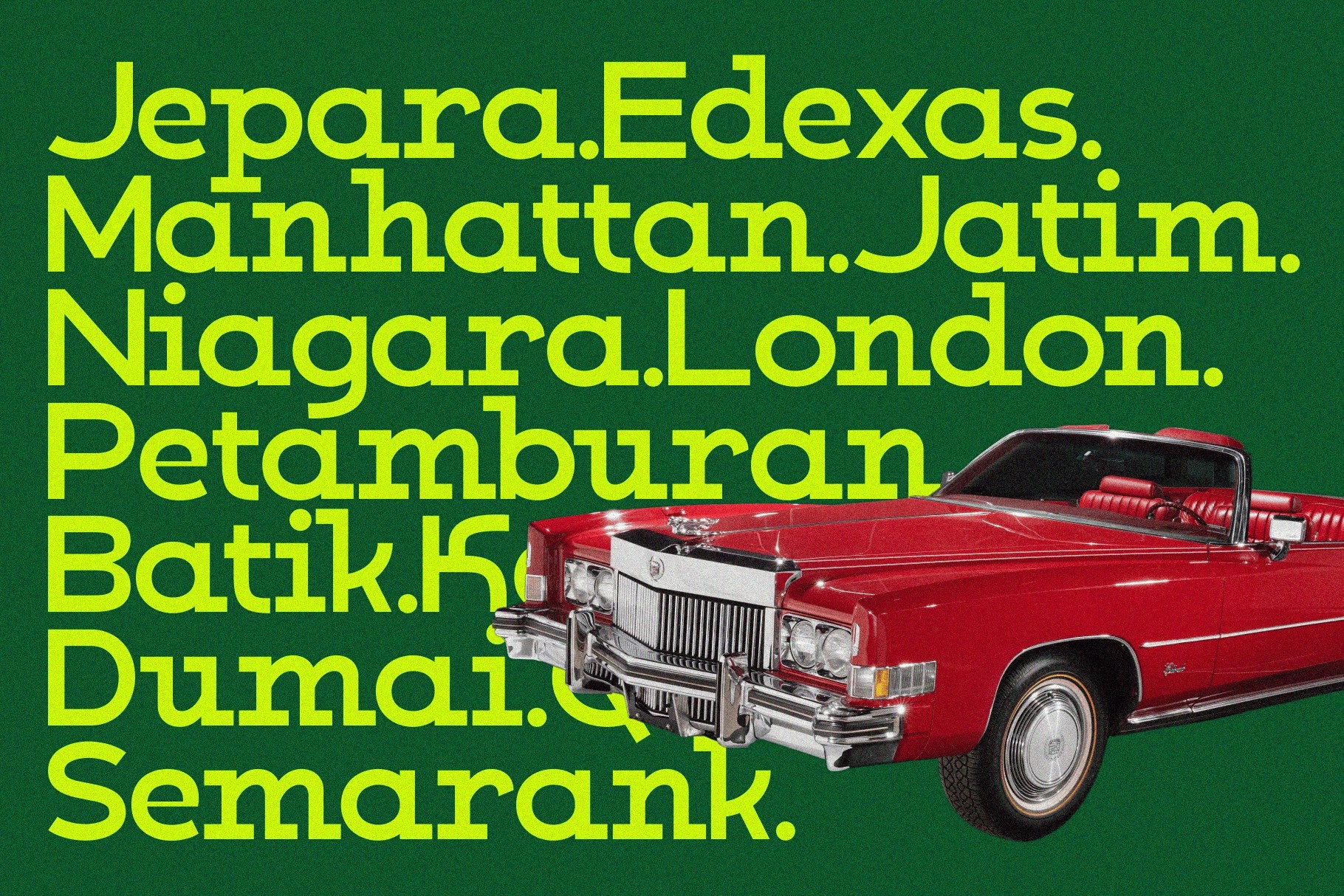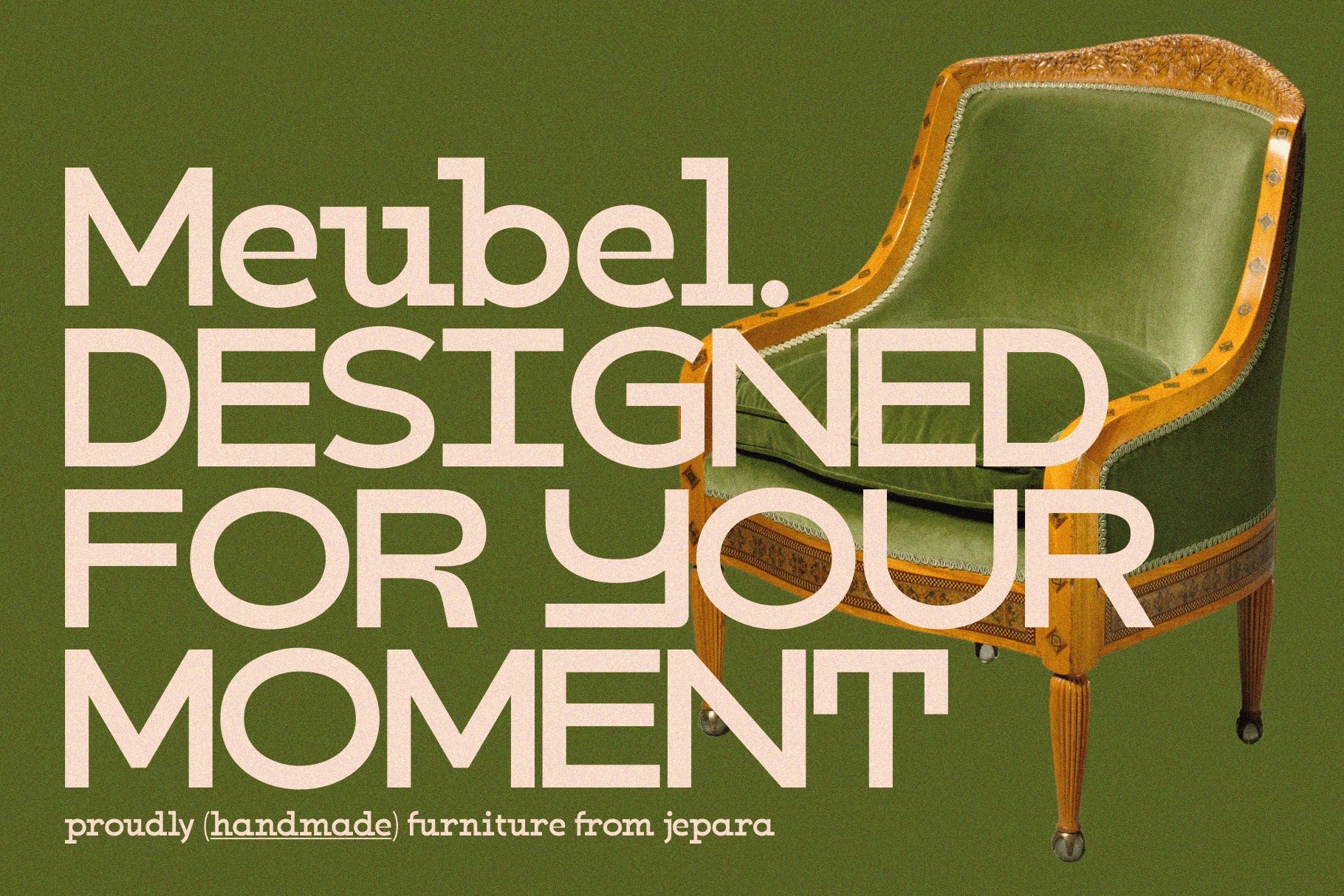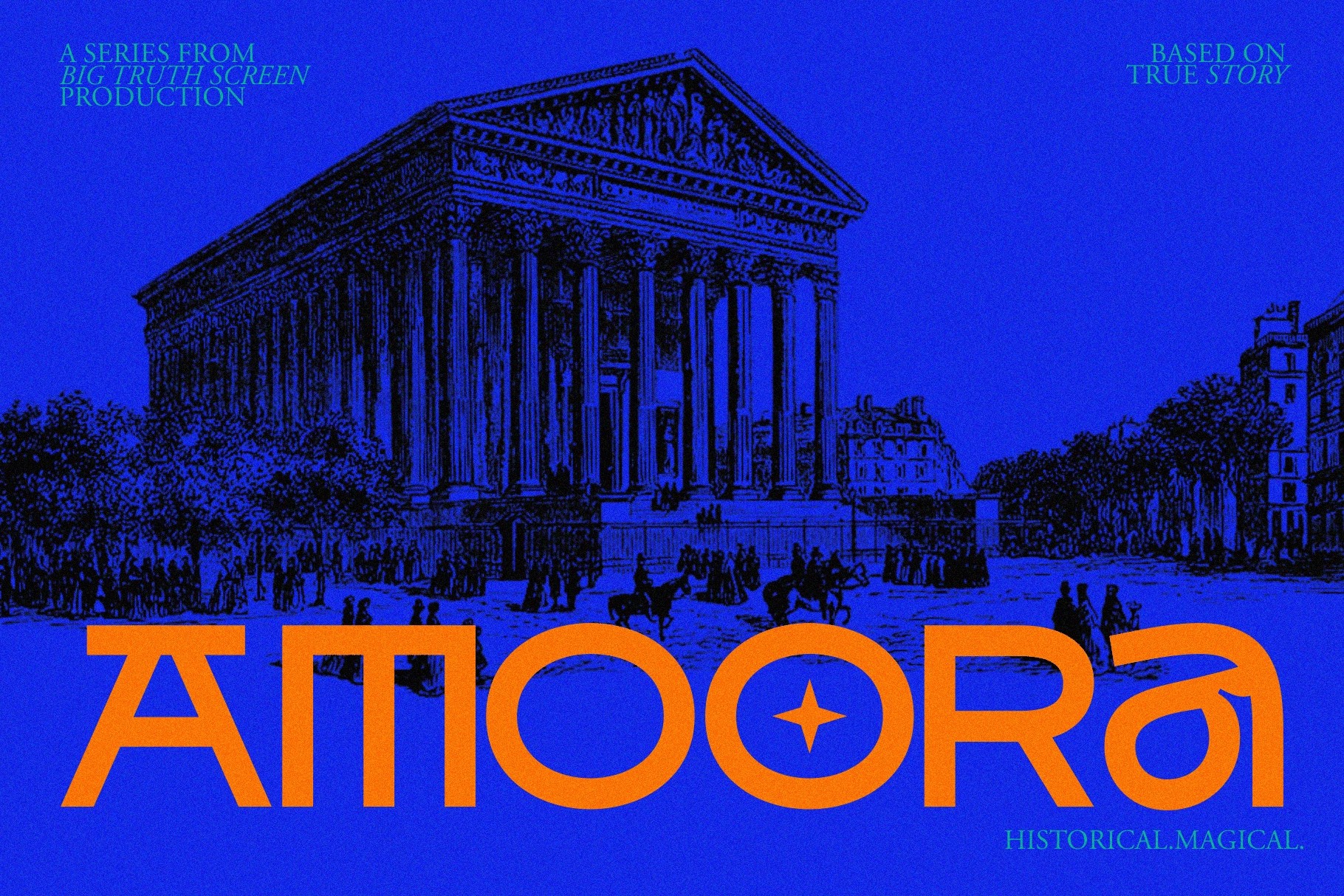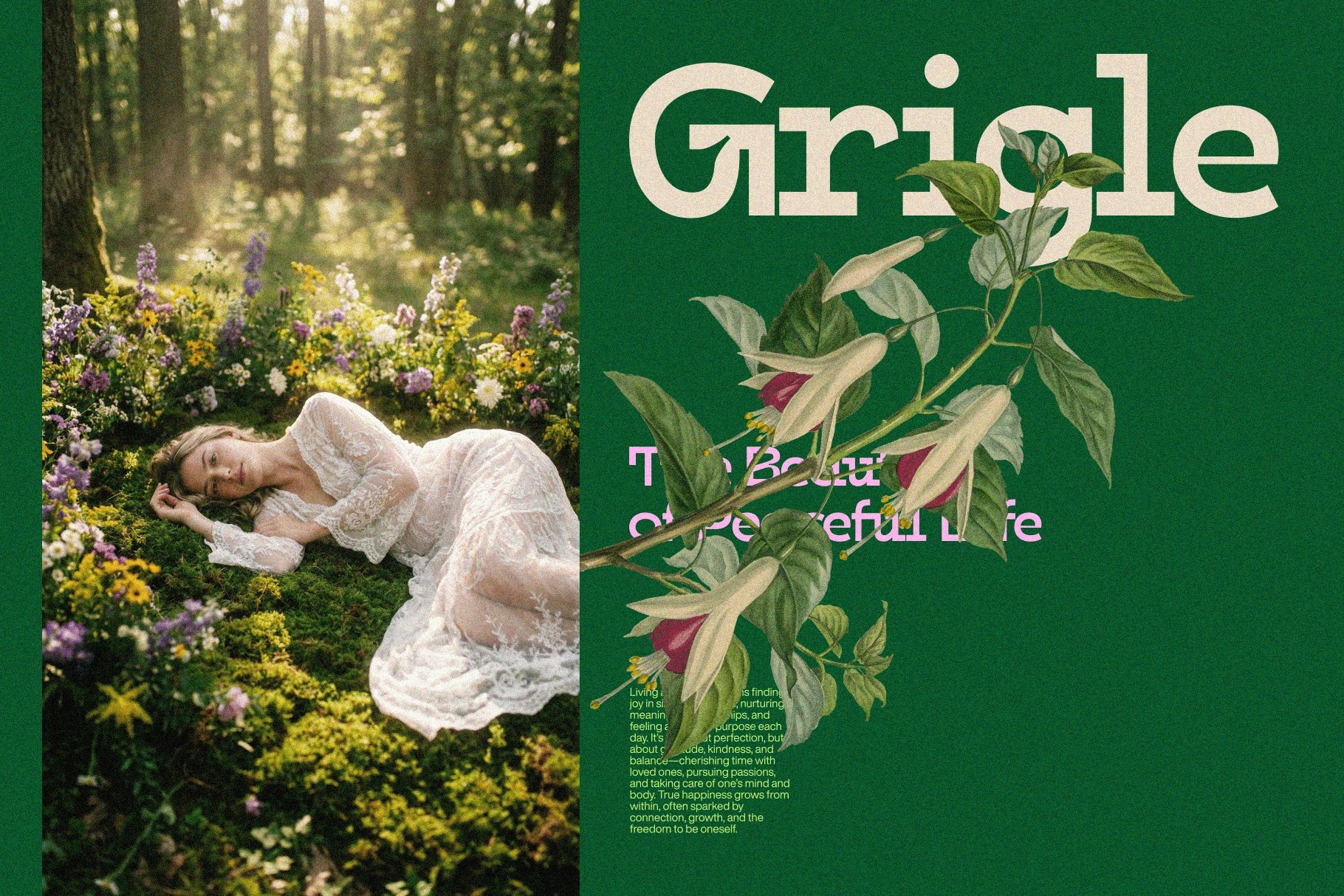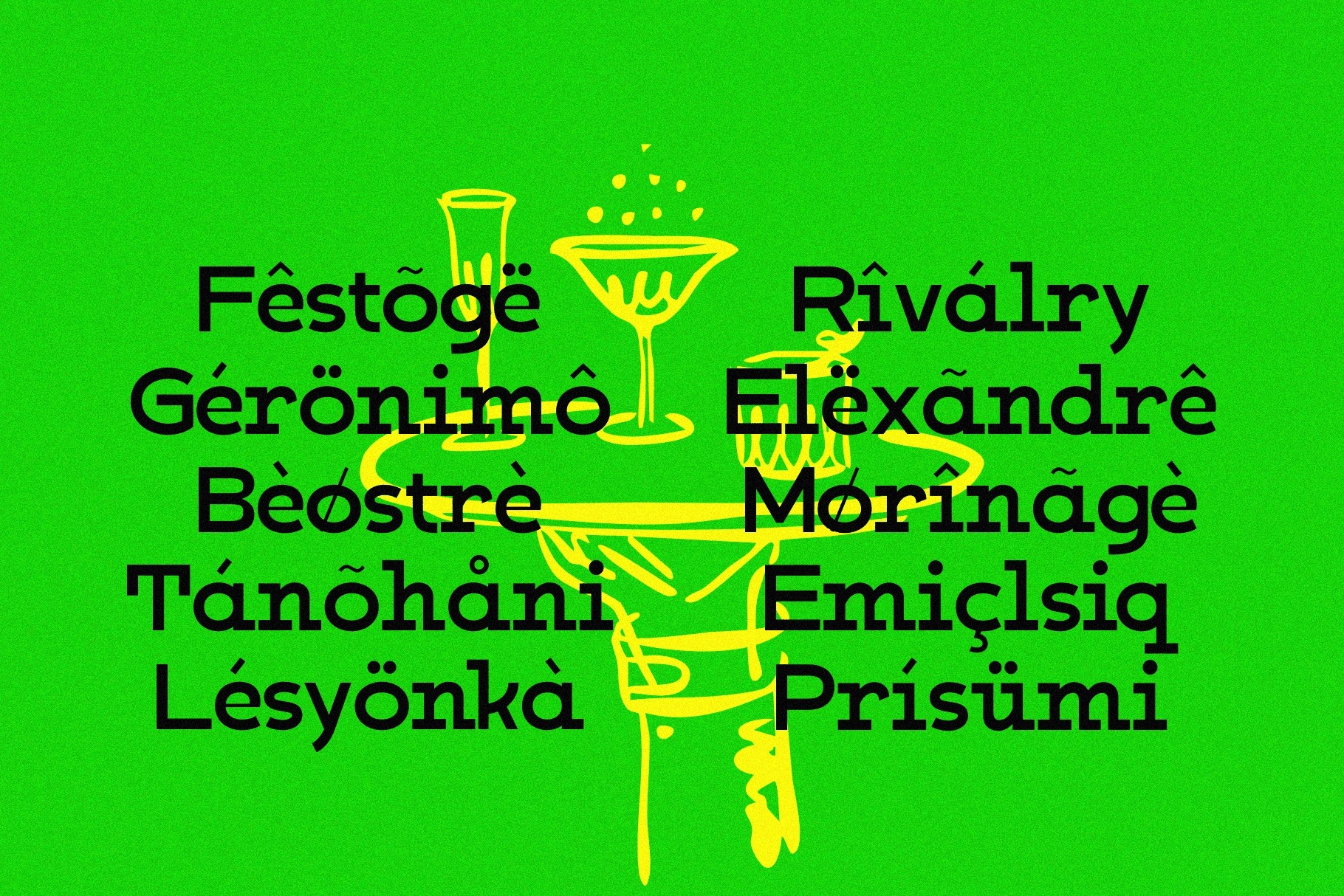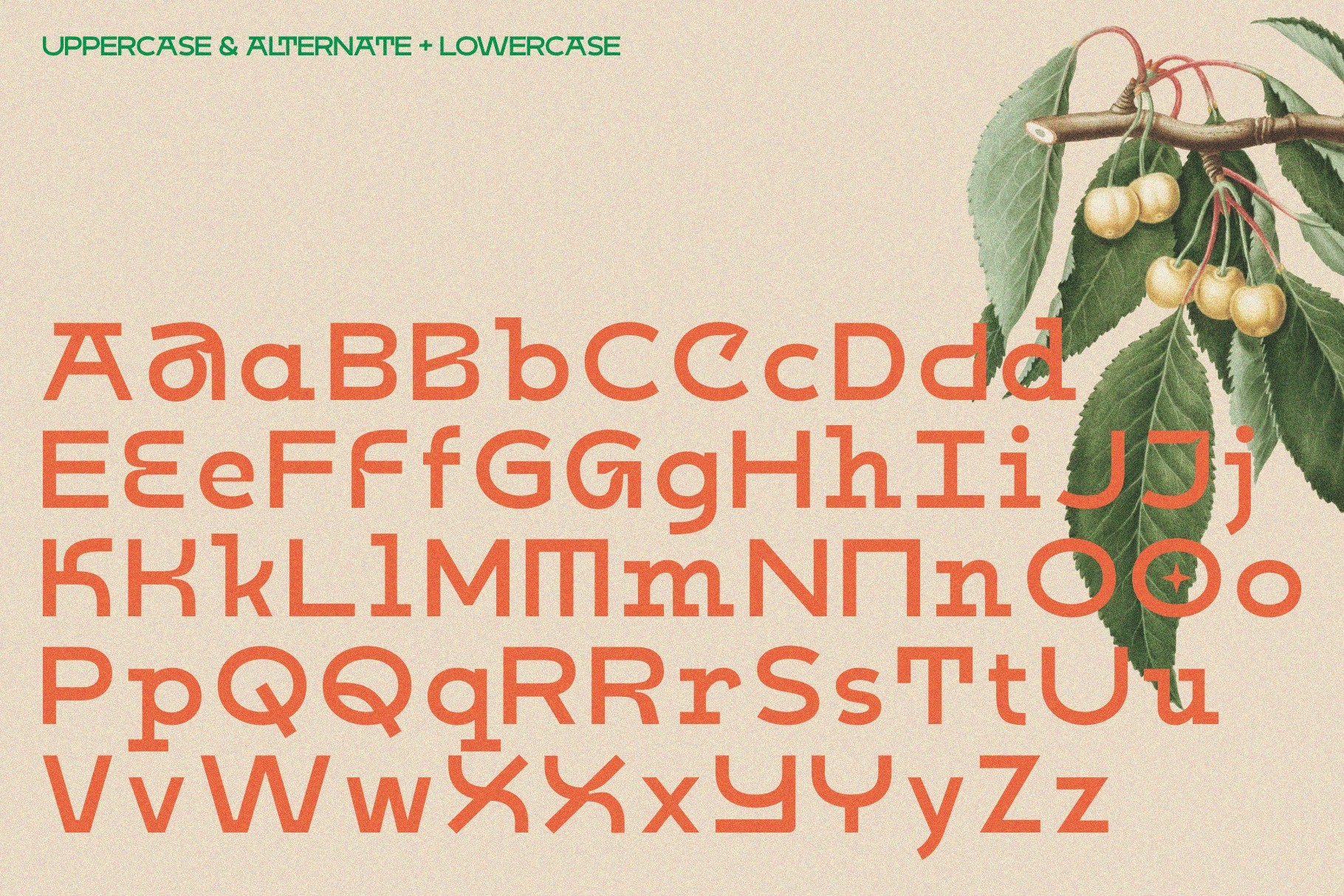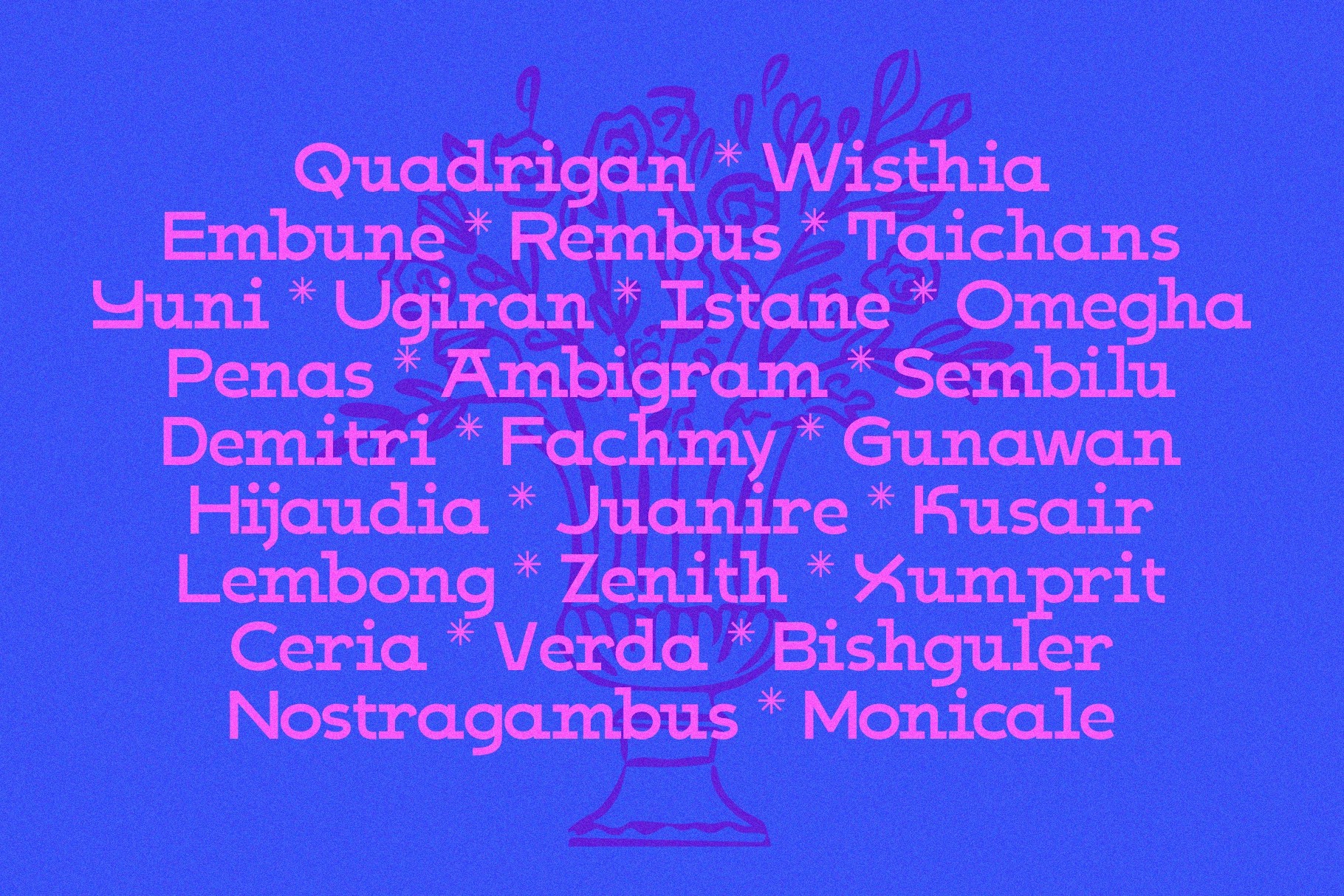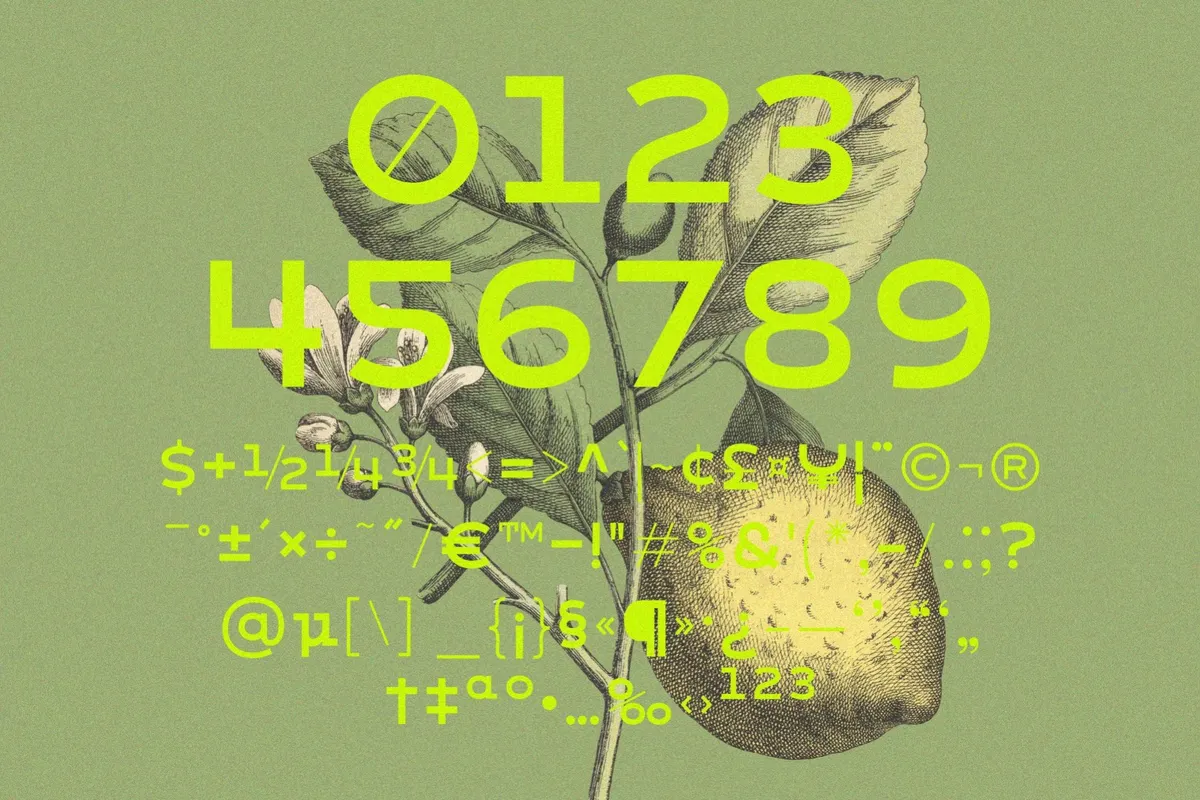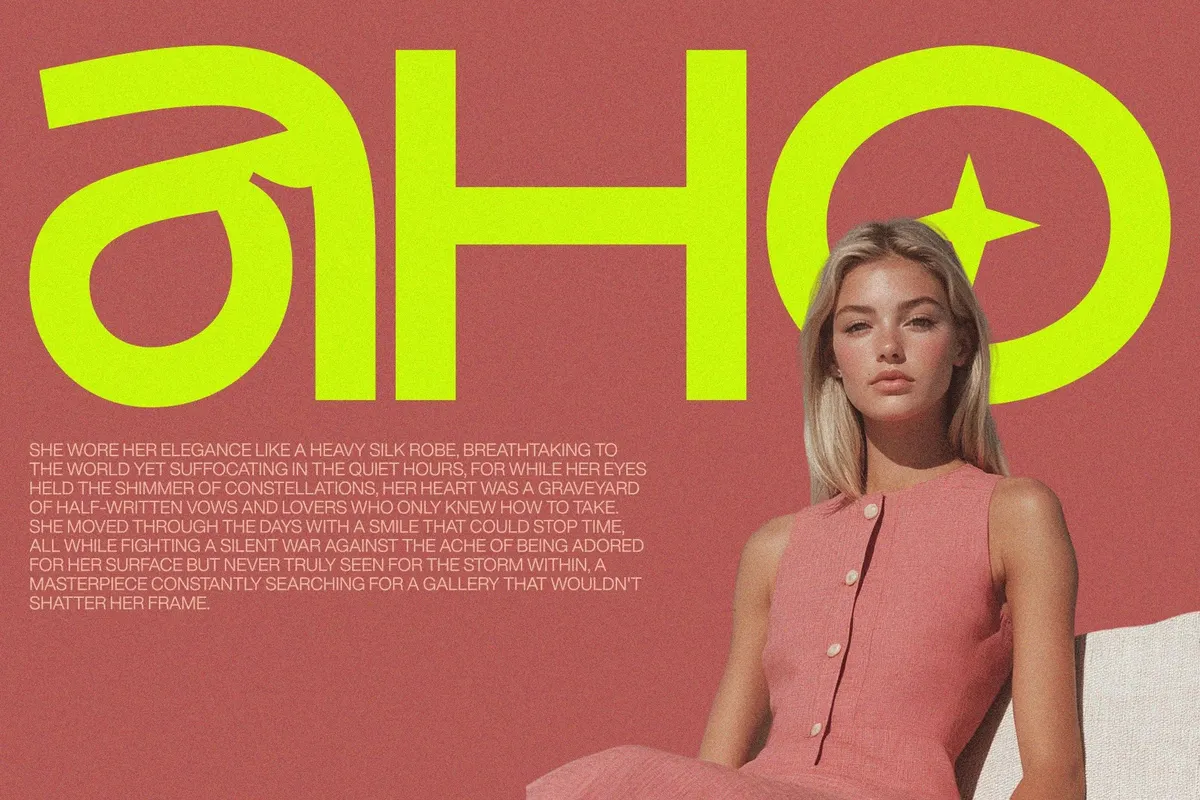
Kabog - Modern Classic Display Font
Kabog
Kabog - Modern Classic Display Font is a refined display typeface that combines contemporary precision with timeless elegance. Designed with clean lines, balanced proportions, and distinctive character details, Kabog delivers a bold yet sophisticated presence suitable for premium branding and modern visual identities.
Built for versatility and clarity, the font includes carefully crafted letterforms with a modern–classic aesthetic that maintains strong readability while offering unique stylistic personality.
- Modern Classic Display Typeface
- Clean, Balanced & Bold Letterforms
- Uppercase & Lowercase Characters
- Punctuation & Symbol Set
- Currency Symbols Included